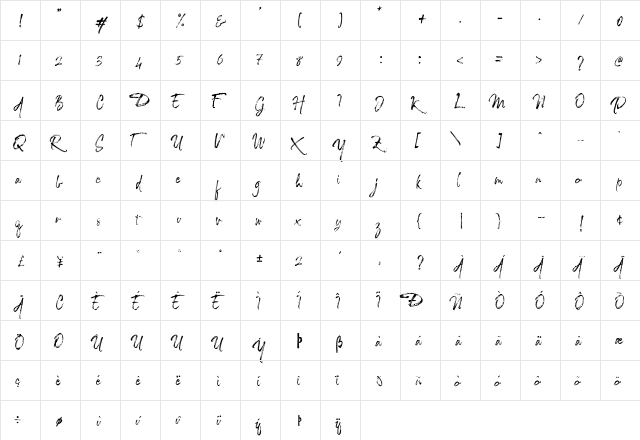
The Caldwell script Regular
Design Context for The Caldwell script Typeface
The Caldwell script flows with the natural rhythm of handwritten lettering, making it ideal for designs that call for warmth and personal expression.
Font Pairing: Combine The Caldwell script with a simple geometric sans for maximum contrast — the tension between flowing curves and clean structure is a classic typographic pairing.
Pro Tip: Pair The Caldwell script with a clean sans-serif for supporting text. The contrast between fluid script and geometric structure creates an elegant typographic hierarchy.